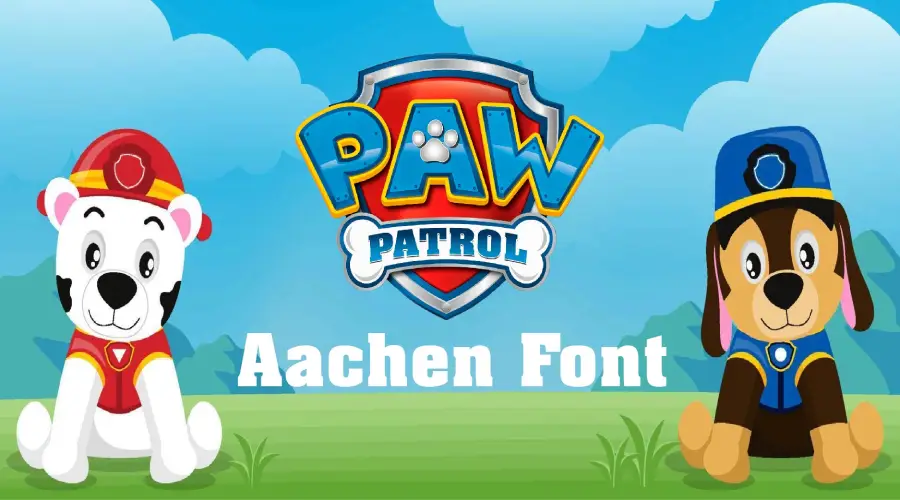
Welcome, Today we want to introduce you to the Paw Patrol font! Paw Patrol is one of the most popular and adorable children’s TV shows in the world. It is an animated series that follows the adventures of a boy named Ryder and his team of six rescue dogs. They use their skills and gadgets to protect the seaside town of Adventure Bay. The show has a colorful and cute logo that uses a custom font inspired by comic book lettering. In this article, we will tell you everything you need to know about the Paw Patrol font, where to use it, and how to find it.
What Font Did They Use in the Paw Patrol Logo?
The Paw Patrol logo uses a custom font designed by Chapman himself. He wanted to create a font that reflected the fun and playful nature of the show and the characters. He also wanted to make it unique and recognizable from other shows. So, the font is a custom font not available on the Internet.
Upon close inspection, we found the Paw Patrol logo incorporates two different fonts. The “PAW” part of the logo features a comic-style font, likely custom-designed. But we found a font that looks like the logo’s letter “Patrol”. It is called Aachen Bold. Alan Meeks designed Aachen Bold, a heavy-stroke slab serif font.
The Paw Patrol font, with its unique and playful style, adds a touch of adventure to any design. Whether you’re a fan of the show or simply love its typography, this font is a fantastic addition to your design toolkit.